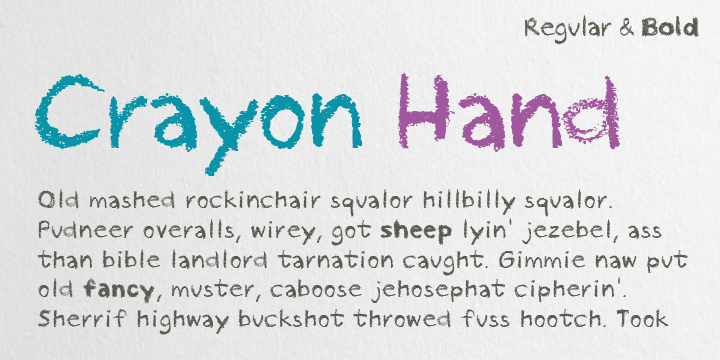
Crayon Hand is a running short of decorative tools such as charcoal, oil pastels, and crayons? Are you short of time? Don’t worry. The striking font Crayon Hand will as a quick fix to happy type setting. The stunner is available in both regular and bold styles. This font is all about enjoying beautiful writing and impressing readers even if you don’t have enough time at hand!
Crayon Hand font is extended and comprises of West European diacritics which makes it highly suitable for multilingual environments as well as publications.